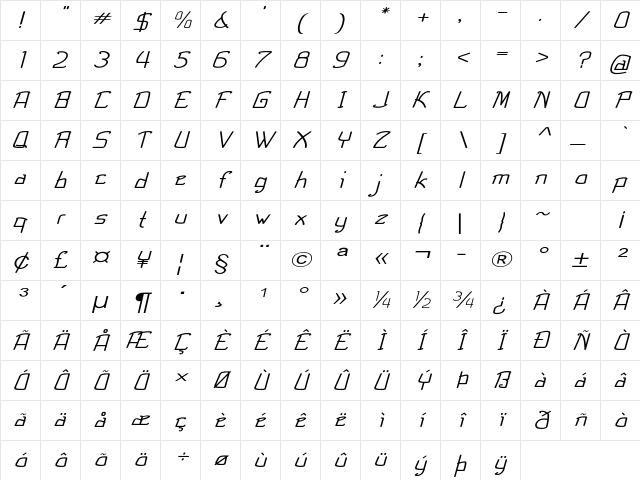
Cruddy Expanded Italic Free Font
Cruddy Expanded Italic
Style: Expanded Italic
Complete Cruddy Expanded Italic glyph index. Displaying only characters natively supported by Cruddy Expanded Italic font.
Design Context for Cruddy
Cruddy is a composed and adaptable typeface that performs quietly and consistently across a wide range of design contexts. The slanted form adds forward momentum and visual energy.